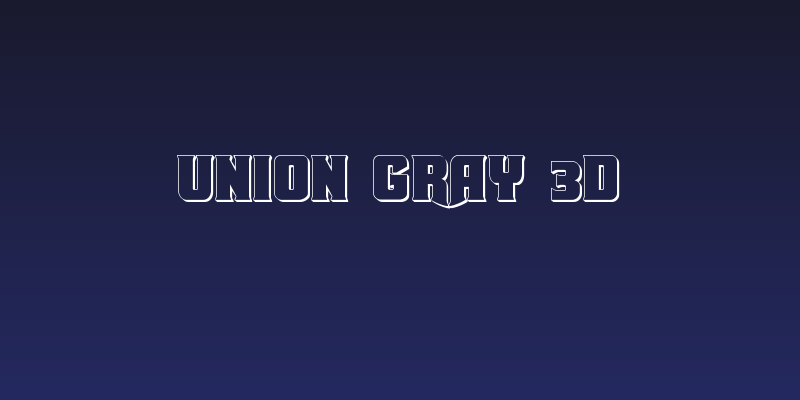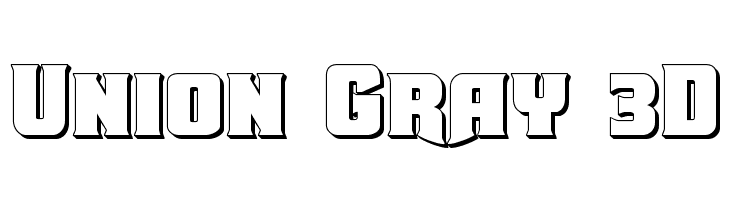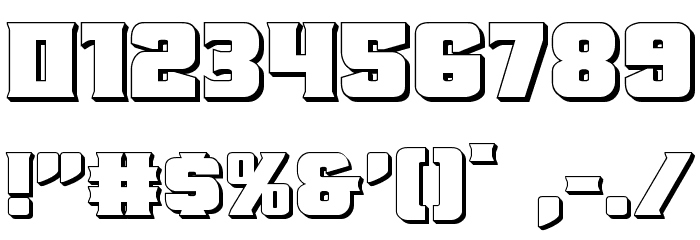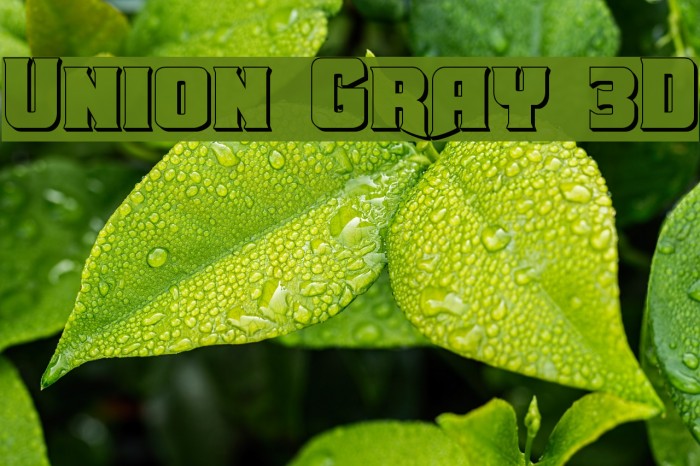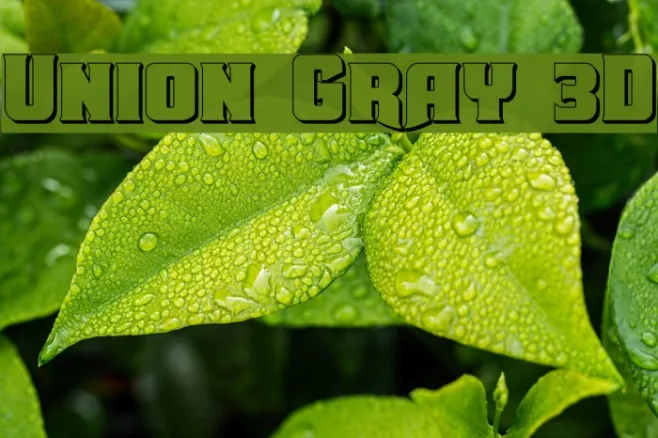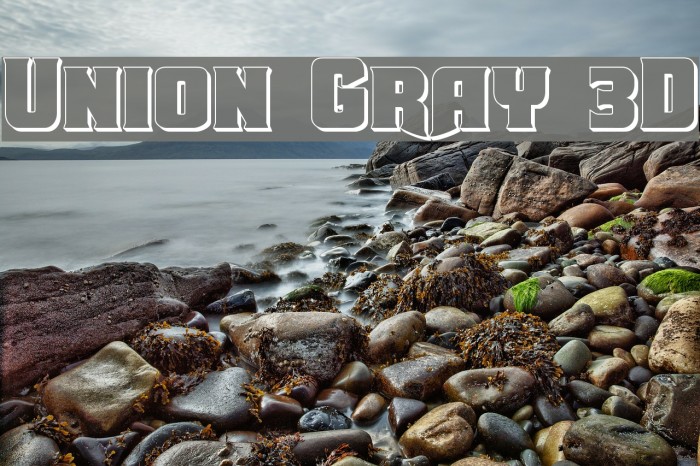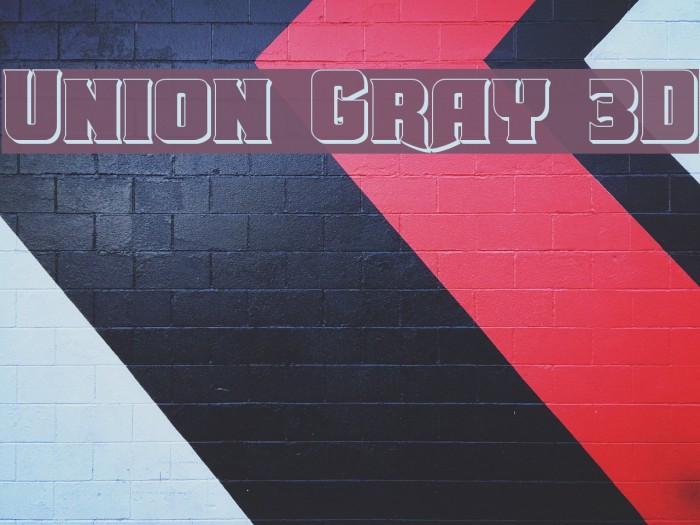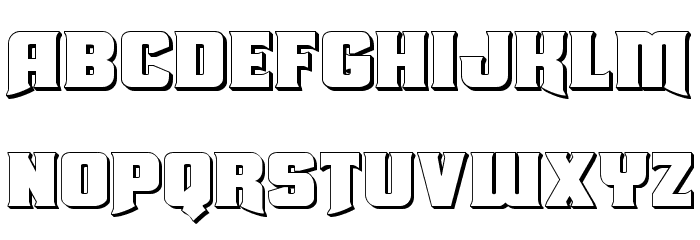
Union Gray 3D Font
Union Gray 3D Description
This font features a bold, three-dimensional design with a strong presence. The characters are outlined with a shadow effect that gives them a lifted appearance, making them stand out prominently. The style is geometric and structured, with sharp angles and clean lines that convey a sense of strength and modernity. The uppercase letters are uniform in height, while the numbers and special characters maintain the same bold and impactful style. This font is ideal for creating eye-catching headlines or logos that require a sense of depth and dimension.
| Proposed Projects | Ideal for logos, posters, and headlines that need a striking, dimensional effect. |